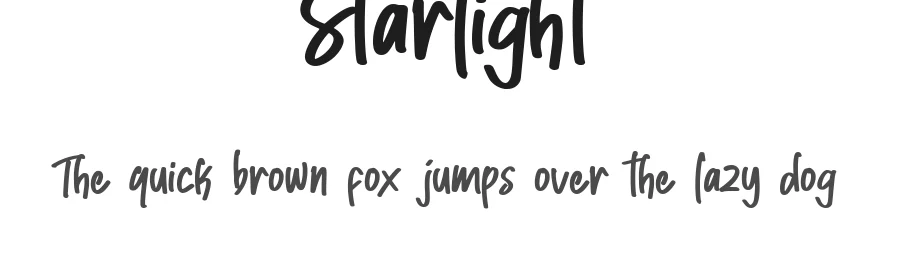
About Santoey Font
Santoey Specifications
| Font Family | Santoey |
| Full Name | Santoey |
| Glyph Count | 244 glyphs |
| PostScript Name | Santoey |
| Designer | Glorytype |
Santoey supports 222 languages.
Santoey Font is a script font that shines as a display or heading face. Pair it with a clean sans-serif or serif font for body text β the contrast creates a clear hierarchy while the two styles stay balanced and easy to read.